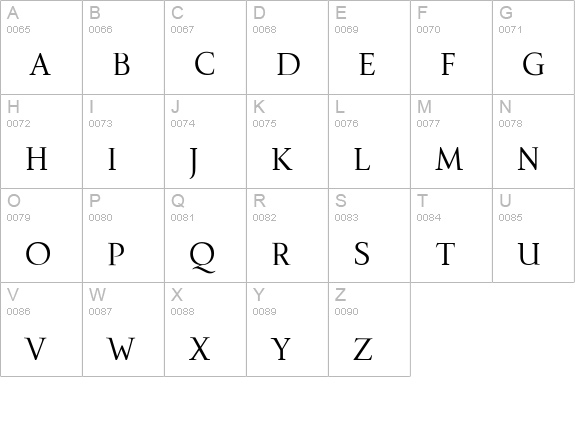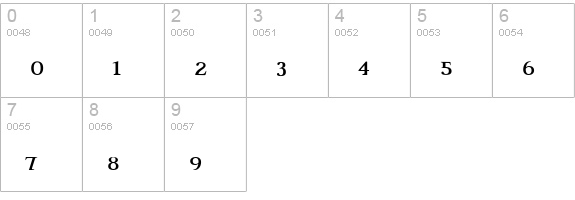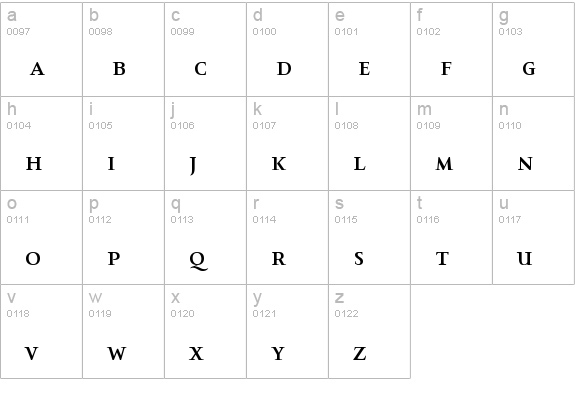
IndisposeSmallCaps-Light Font Details
IndisposeSmallCaps-Light is a refined, elegant variant in the IndisposeSmallCaps typeface family \xE2\x80\x94 well suited to elegant body text, refined sub-headings, and luxury branding.
IndisposeSmallCaps-Light font is a captivating and elegant typeface that effortlessly combines sophistication with a touch of modernity. Its delicate, slender strokes create a sense of grace and poise, making it the perfect choice for projects that require a refined and stylish appearance. With its small caps feature, this font offers a unique and distinct look, adding a touch of originality to any design. The small capitals are meticulously crafted to seamlessly integrate with the lowercase letters, resulting in a harmonious and balanced overall composition. IndisposeSmallCaps-Light font is freely available to download at FontsMarket.com. This means that designers and creatives alike can enjoy the beauty and versatility of this font without any financial burden. Whether you are working on a personal project or a professional design, this font will undoubtedly elevate your work and leave a lasting impression. The versatility of IndisposeSmallCaps-Light font is further enhanced by its wide range of language support, ensuring that you can effectively communicate your message to a global audience. From branding materials to editorial designs, this font is a versatile tool that will enhance your creativity and bring your ideas to life. In addition to its aesthetic appeal, IndisposeSmallCaps-Light font also boasts excellent legibility, ensuring that your text remains clear and easy to read across various mediums. Whether it's printed materials, digital platforms, or even signage, this font will maintain its clarity and readability, guaranteeing a seamless user experience. IndisposeSmallCaps-Light font is a valuable addition to any designer's toolkit, offering both beauty and practicality. Its free availability at FontsMarket.com makes it easily accessible to everyone, enabling designers to create stunning visuals without any financial constraints. Download this font today and unleash your creativity with its timeless elegance and versatility.